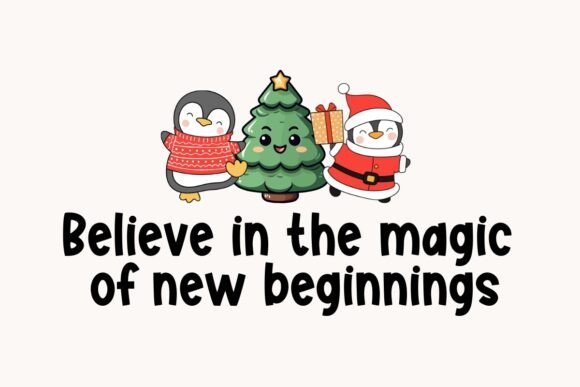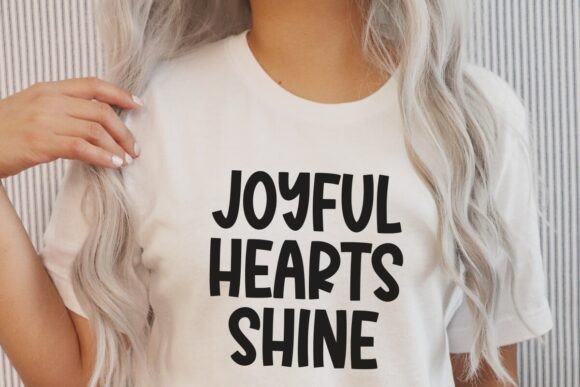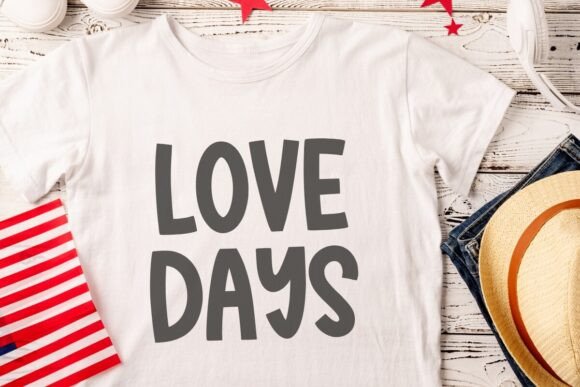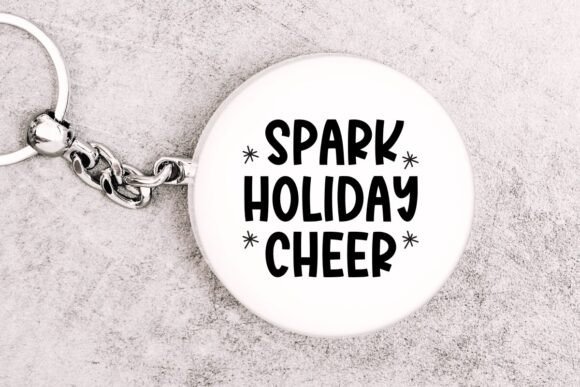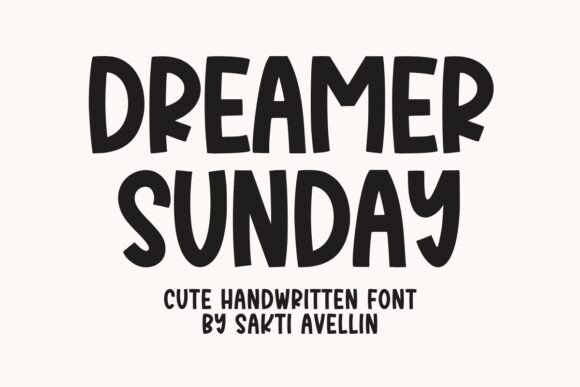
Dreamer Sunday Font: Adding a Touch of Handcrafted Charm to Your Designs
Imbued with an artistic touch and a vibrant persona, Dreamer Sunday invites an enchanting essence of handcrafted charm to your work. This beguiling typeface thrives on crafts, amplifying the sentiment of greeting cards, and heightening emotions in quotes. If you’re a designer or crafter looking to add a unique and captivating aesthetic to your projects, look no further than Dreamer Sunday.
The Allure of Handcrafted Charm
Dreamer Sunday is more than just a font – it’s an experience. With its distinctive flair, this enchanting typeface weaves a narrative on various materials, from key chains to t-shirts, mugs, and doormats. Its captivating aesthetics will exude allure, stir intrigue, and invite warmth, making it the perfect addition to your design toolkit.
Perfect for Crafts and Designs
Dreamer Sunday is specifically designed to thrive on crafts, making it an ideal choice for designers and crafters who want to add a personal touch to their work. Whether you’re creating greeting cards, quotes, or other materials, this font will amplify the sentiment and heighten the emotions. Its handcrafted charm will make your designs stand out and leave a lasting impression.
Endless Possibilities
The versatility of Dreamer Sunday is one of its most significant advantages. You can use it on various materials, including:
• T-shirts: Add a captivating aesthetic to your apparel designs with Dreamer Sunday.
• Mugs: Stir intrigue and invite warmth with this enchanting font on ceramic mugs.
• Doormats: Welcome guests with a touch of handcrafted charm on your doormat designs.
• Key chains: Weave a narrative on small materials like key chains with Dreamer Sunday.
• Greeting cards: Amplify the sentiment of your cards with this beguiling typeface.
The Magic of Real Penmanship
Dreamer Sunday encapsulates the charm of real penmanship, making it a unique and authentic addition to your designs. This font is not just a digital representation of handwriting – it’s a genuine, handcrafted experience that will immerse your audience in its magnetic lure.
Why Choose Dreamer Sunday?
With so many fonts available, why choose Dreamer Sunday? Here are just a few reasons:
• Unique aesthetic: Dreamer Sunday offers a distinctive and captivating aesthetic that will set your designs apart.
• Handcrafted charm: This font embodies the essence of handcrafted charm, making it perfect for crafts and designs.
• Versatility: You can use Dreamer Sunday on various materials, from apparel to home decor.
• Emotional connection: This font will heighten emotions and amplify sentiment, making it ideal for greeting cards, quotes, and other materials.
Imbued with an artistic touch and a vibrant persona, Dreamer Sunday is the perfect addition to your design toolkit. With its handcrafted charm, captivating aesthetics, and versatility, this font will elevate your designs and leave a lasting impression. Whether you’re a designer or crafter, Dreamer Sunday invites you to revel in the charm of real penmanship and immerse yourself in its magnetic lure.